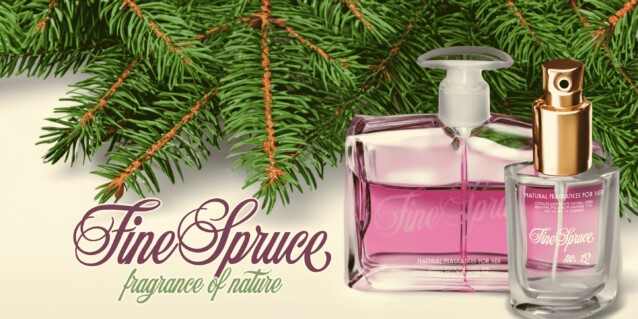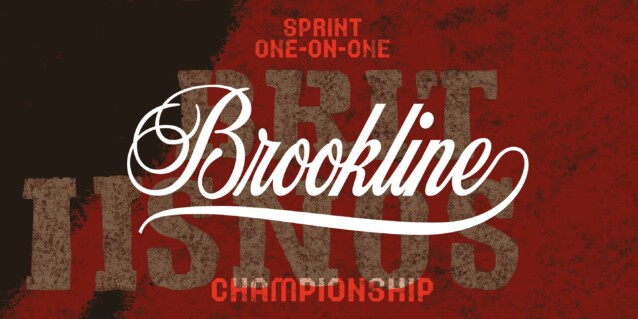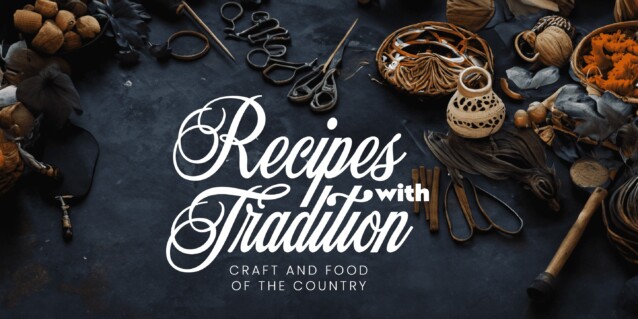
Songs Of Moravia Font
Songs Of Moravia Font is a versatile display script with a unique and dynamic cadence. Its decorative capitals, adorned with delicate swashes and swirls, evoke the rich heritage and melodious charm of European design. Songs of Moravia captures the genuine spirit of folk tunes, offering a hint of tradition woven with modern craft, perfectly suited for projects that seek to marry the old with the new. Gentle yet vibrant, this type is a delightful choice for invitations and formal design. It has extensive lingual support, covering all Latin-based languages, from Northern Europe to South Africa, from America to South-East Asia. It contains all characters and symbols you’ll ever need, including all punctuation and numbers.